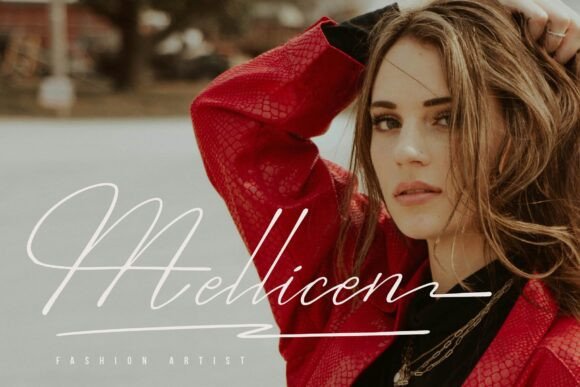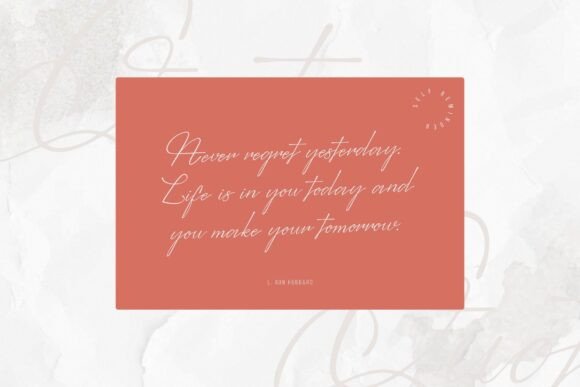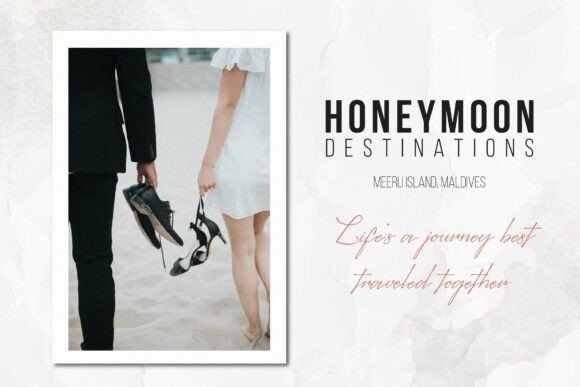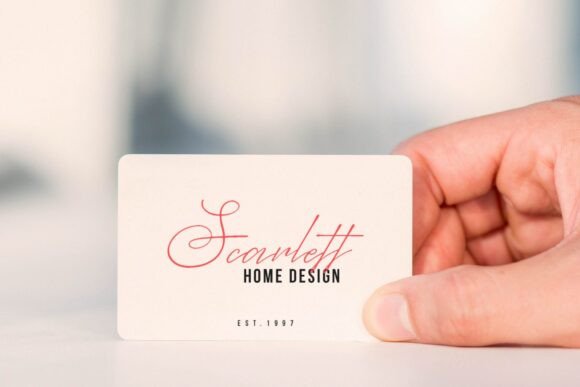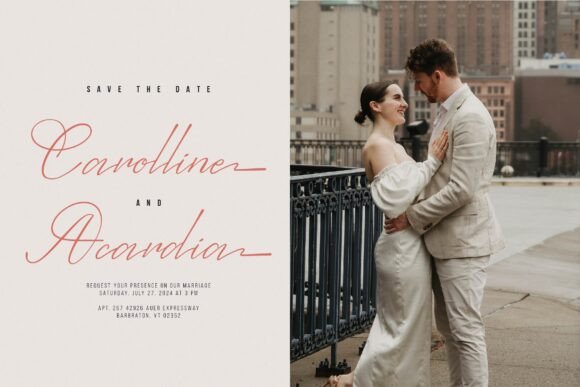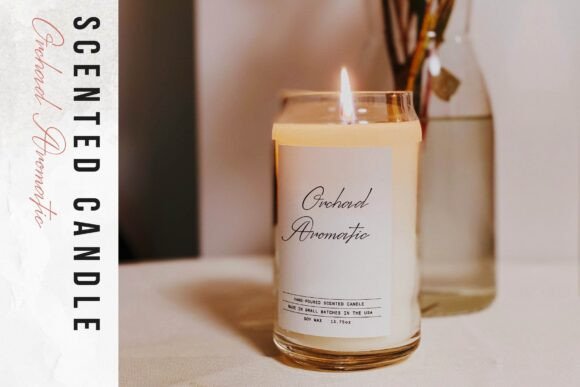
Introducing Betrayos Font: Elevate Your Designs with Elegant Handwriting
Are you looking for a font that can add a touch of sophistication and personality to your designs? Look no further than Betrayos Font, an elegant signature font that mimics beautiful handwriting. With its smooth curves and stylish flow, Betrayos is perfect for crafters, designers, and anyone looking to add a personal touch to their creative projects.
What Makes Betrayos Font Special?
Betrayos Font stands out from other fonts due to its unique, handwriting-like quality. Its elegant curves and fluid strokes give it a natural, organic feel that’s perfect for creating invitations, greeting cards, and other personalized materials. Whether you’re a professional designer or a DIY crafter, Betrayos Font can help you create stunning designs that capture the essence of your message.
Key Features of Betrayos Font
- Elegant Handwriting Style: Betrayos Font boasts a beautiful, cursive script that’s reminiscent of elegant handwriting.
- Smooth Curves and Stylish Flow: The font’s smooth curves and fluid strokes create a natural, effortless look that’s perfect for a variety of design applications.
- Perfect for Invitations and Cards: Betrayos Font is ideal for creating personalized invitations, greeting cards, and other special occasion materials.
- Versatile and Easy to Use: The font is easy to read and use, making it perfect for designers and crafters of all skill levels.
How to Use Betrayos Font in Your Designs
Betrayos Font is incredibly versatile and can be used in a variety of design applications, including:
- Invitations: Create beautiful, personalized invitations for weddings, birthday parties, and other special occasions.
- Greeting Cards: Design stunning greeting cards for holidays, birthdays, and other celebrations.
- Logos and Branding: Use Betrayos Font to create elegant logos and branding materials for your business or personal projects.
- Social Media Graphics: Add a touch of elegance to your social media graphics, including Facebook posts, Instagram stories, and more.
Why Choose Betrayos Font?
With so many fonts available, why choose Betrayos Font? Here are just a few reasons:
- Unique and Eye-Catching: Betrayos Font is a unique and eye-catching font that will help your designs stand out from the crowd.
- High-Quality Design: The font is designed with high-quality craftsmanship, ensuring that it looks great in any design application.
- Easy to Read and Use: Betrayos Font is easy to read and use, making it perfect for designers and crafters of all skill levels.
Betrayos Font is an elegant signature font that’s perfect for adding a personal touch to your designs. With its smooth curves and stylish flow, it’s ideal for creating invitations, greeting cards, and other special occasion materials. Whether you’re a professional designer or a DIY crafter, Betrayos Font is a great choice for anyone looking to elevate their designs with beautiful handwriting.